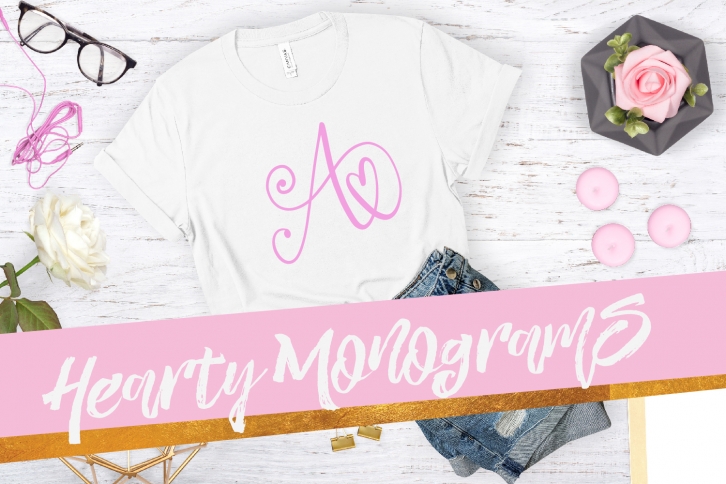
Hearty Monograms - Font Download
Hearty Monograms is a beautiful font that was designed by Justina Tracy. It's a great choice for designers and creatives who need such a font. It was released on July 27, 2018 and the file size is 8.94 MB. Hearty Monograms may give a more youthful, expressive and casual look to your project. It is a very beautiful, refined, elegant, and high-quality font.